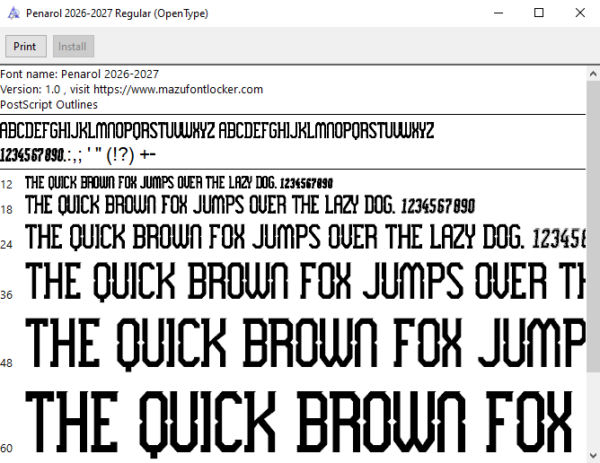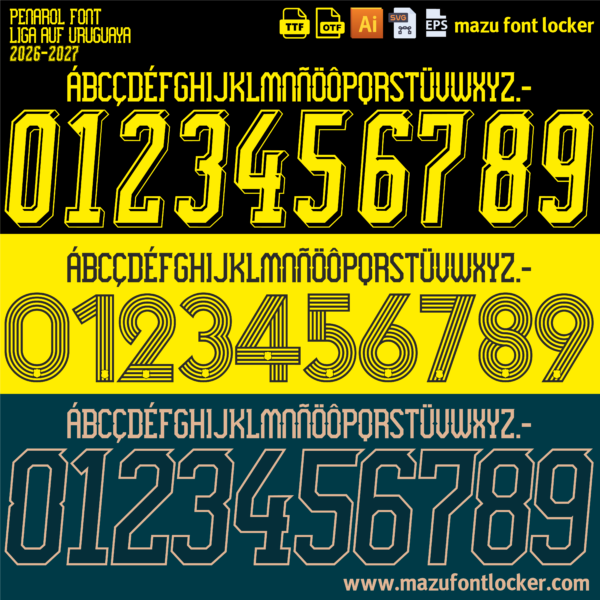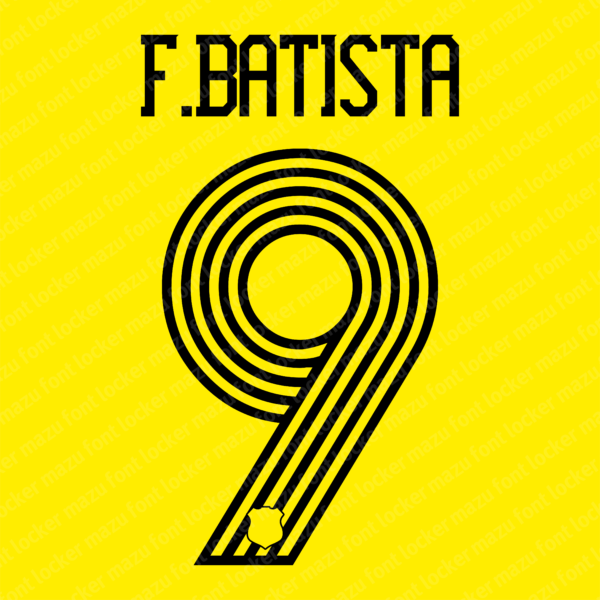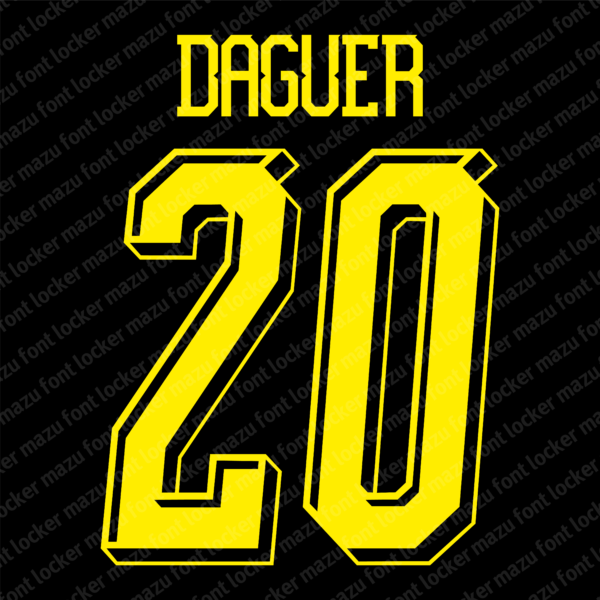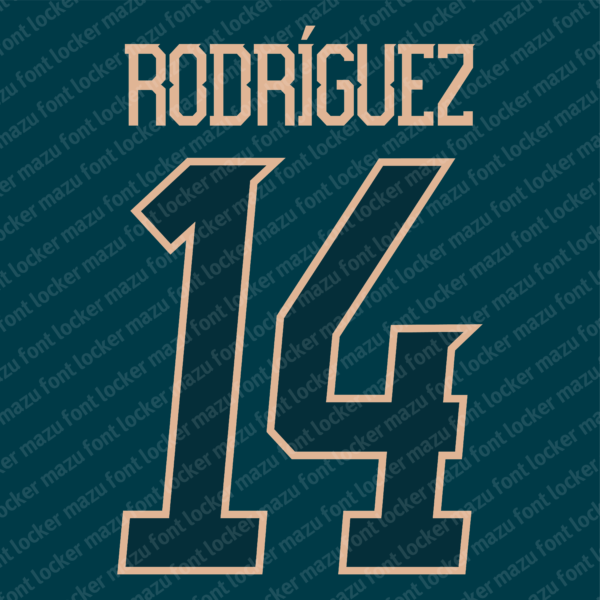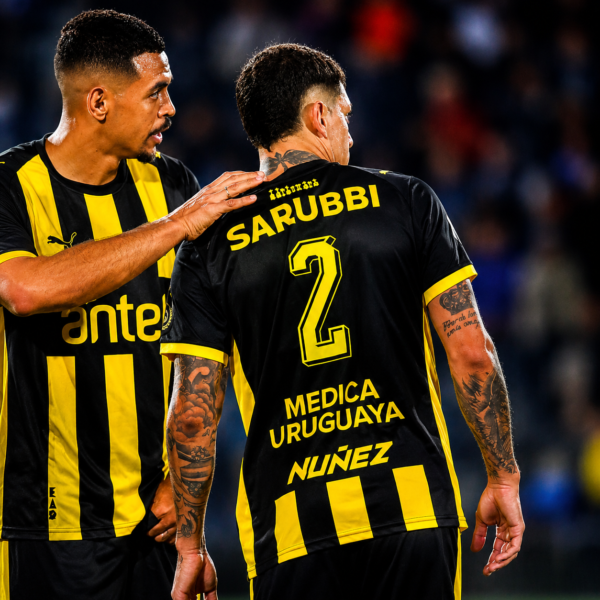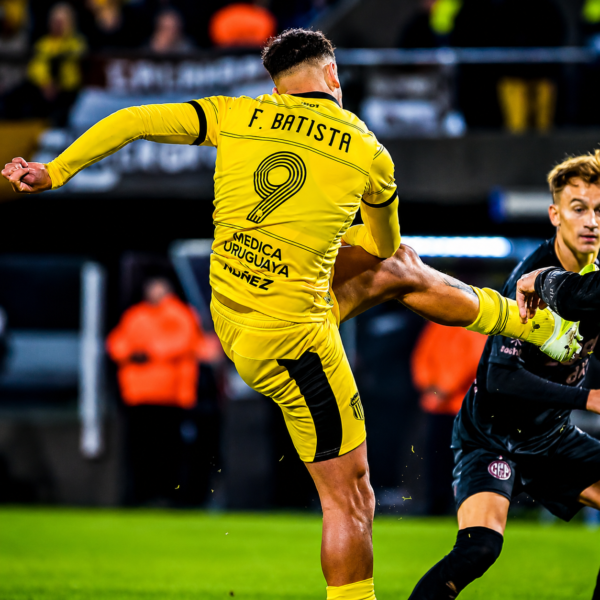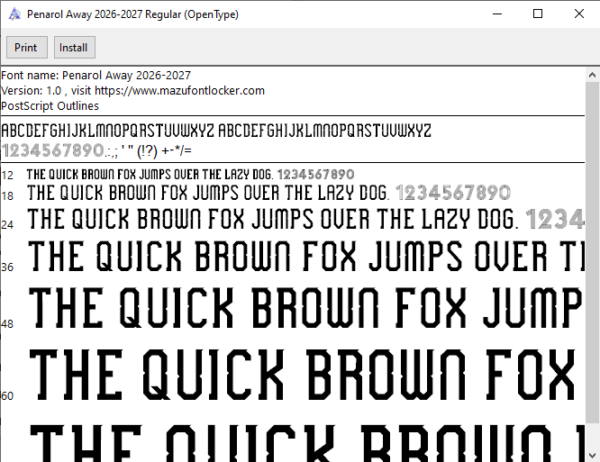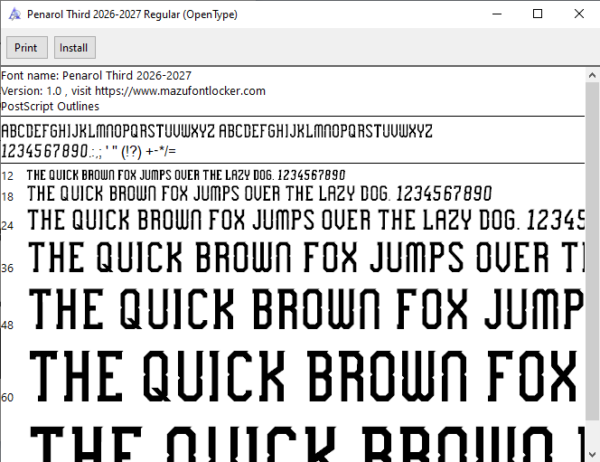
Penarol 2026-2027 Font Vector – Epic Aurinegro Masterpiece
Peñarol 2026-2027 Font – Authentic Aurinegro Typeface
The Peñarol 2026-2027 Font is a premium typeface that accurately recreates the official match lettering worn by Club Atlético Peñarol during the 2026-2027 season. This high-quality font kit captures the bold, modern, and iconic typography that represents the legendary Aurinegros campaign.
Designed for professional designers and passionate Peñarol fans, the Peñarol 2026-2027 Font delivers perfect authenticity for creating realistic jersey mockups, fan merchandise, matchday posters, social media graphics, and much more. It blends beautifully with the team’s iconic black and yellow colors.
Why Choose Peñarol 2026-2027 Font
This font stands out because of its sharp details and strong historical identity combined with a contemporary edge. Every letter and number is crafted to match the exact style used on the players’ shirts during the 2026-2027 season. Whether you are making realistic kit templates or dynamic football content, the Peñarol 2026-2027 Font gives your designs that authentic Aurinegro look.
The letterforms in the Peñarol 2026-2027 Font are tall, bold, and highly readable. The strokes have a strong and controlled weight that looks powerful on the back of jerseys while maintaining excellent clarity and modern elegance.
The numerals use bold curves and firm edges, giving them a confident and premium appearance. This design ensures great legibility whether used in large print formats, digital mockups, or video content.
• Full uppercase A–Z and numbers 0–9 in authentic Peñarol 2026-2027 style
• Special Peñarol club crest glyph for accurate shirt number detailing